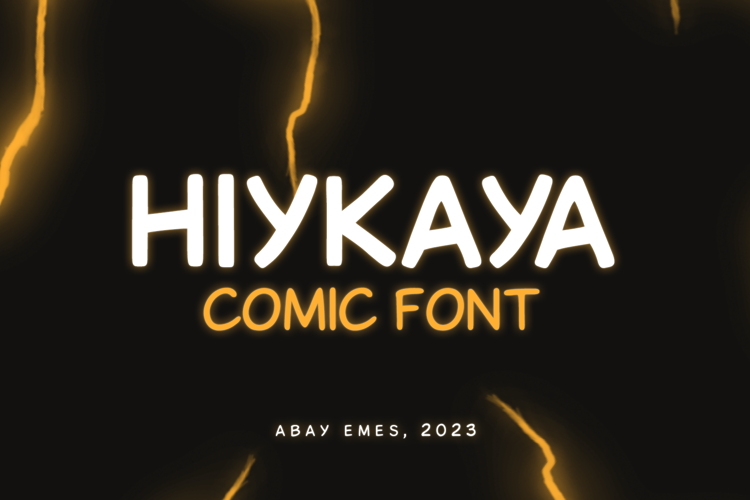
Hiykaya Font
About Hiykaya Font
A comic book font made by a designer from Kazakhstan. The font has Cyrillic and basic Latin. Regular version is free for personal use, and you can use it in your non-commercial projects. Hiykäyä translates from Kazakh as Story.